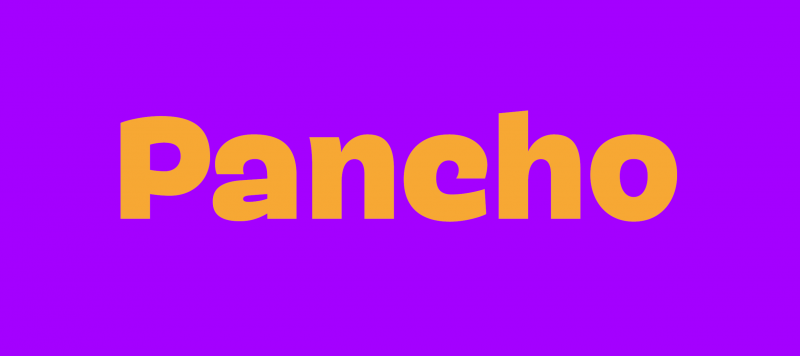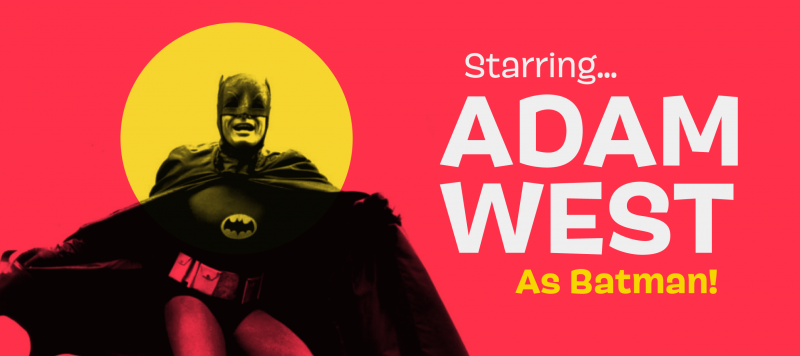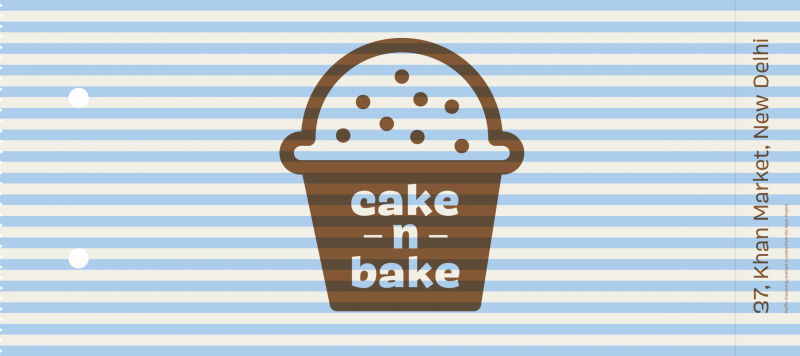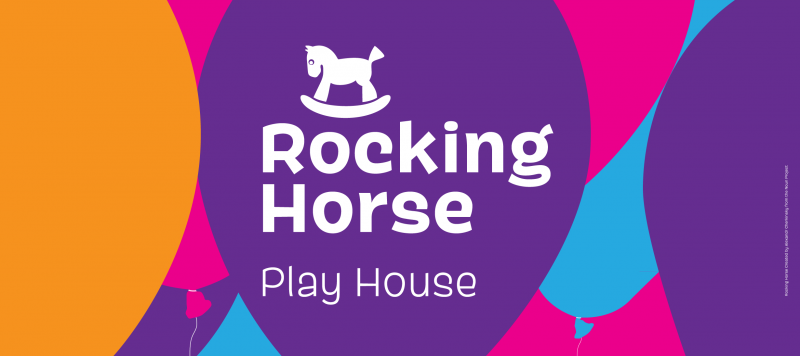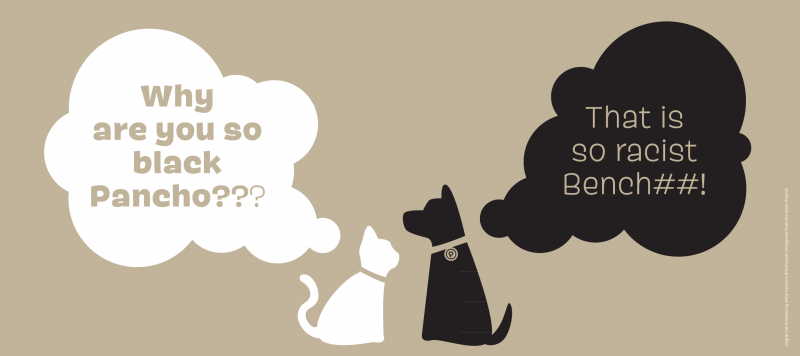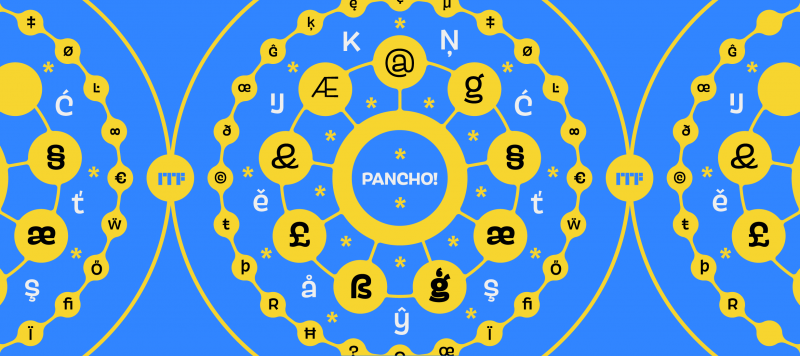
Pancho is a very informal sans serif. It’s story started with its name. Shiva Nallaperumal and Satya Rajpurohit were toying with the word “Pancho” and wondered if a typeface could be designed with just the name as a starting point, without any other conscious precedents or intended applications. Pancho is now the jester in ITF’s otherwise serious catalogue; the typeface brings comic relief to our library. The typeface pays some tribute to the work of Roger Excoffon, for instance in the top-heaviness of many of its letters, or the form of its capital “O.” Pancho is Shiva Nallaperumal’s first typeface to be published by ITF.
Family Name | Pancho |
Designer(s) | Shiva Nallaperumal |
Classification | Display, Sans |